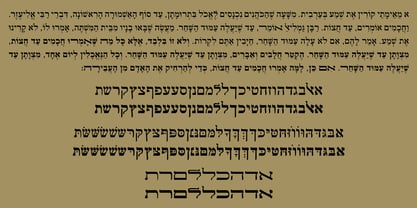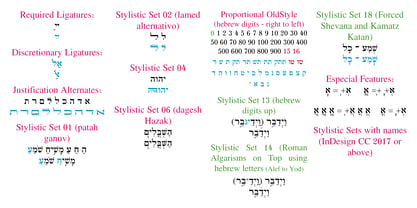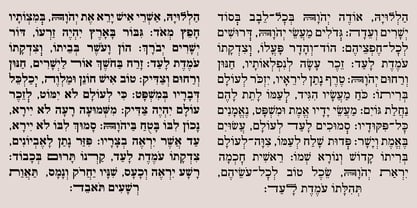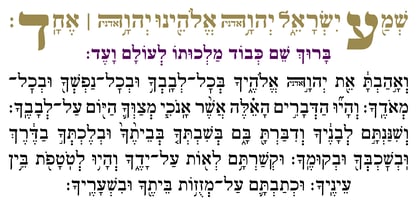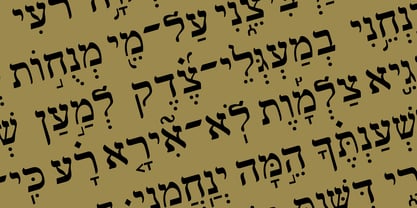
Hebrew Rinat 217 Tanach
Die Schriftfamilie Hebrew Rinat 217 Tanach wurde von Sami Artur Mandelbaum entworfen und von Samtype veröffentlicht. Hebrew Rinat 217 Tanach enthält 2 Stile und Familienpaketoptionen. Mehr über diese Familie
This is a Classic font inspired by metal type called Peninim. This metal font was widely used in Israel from the beginning of the XX century until the end of the 80's. The Siddur Rinat Israel used this typeface for many years. Rinat 217 is a modern view from this era. We added a bold weight that wasn't available at the time. You can find in this font the modern Nikud: Kamatz Katan, Shevana, Dagesh Chazak, and Cholam Chaser.